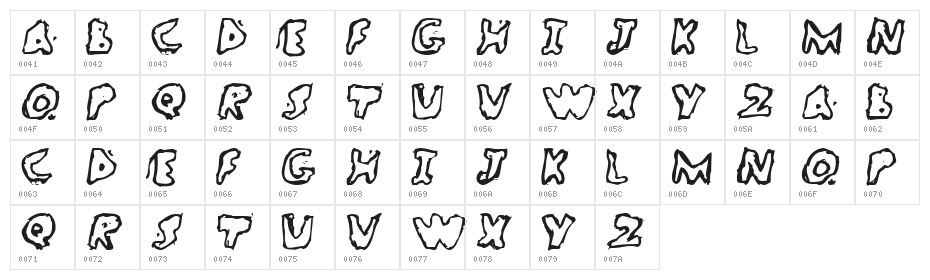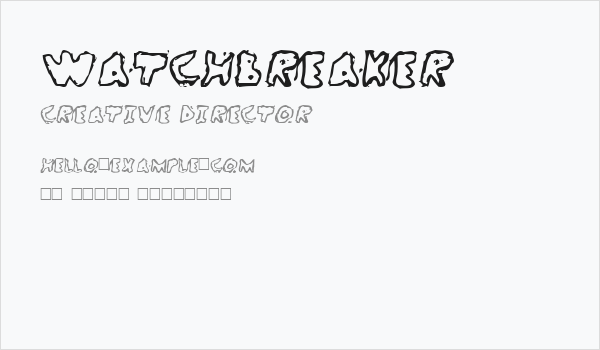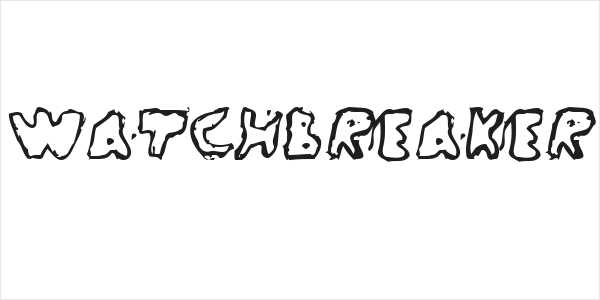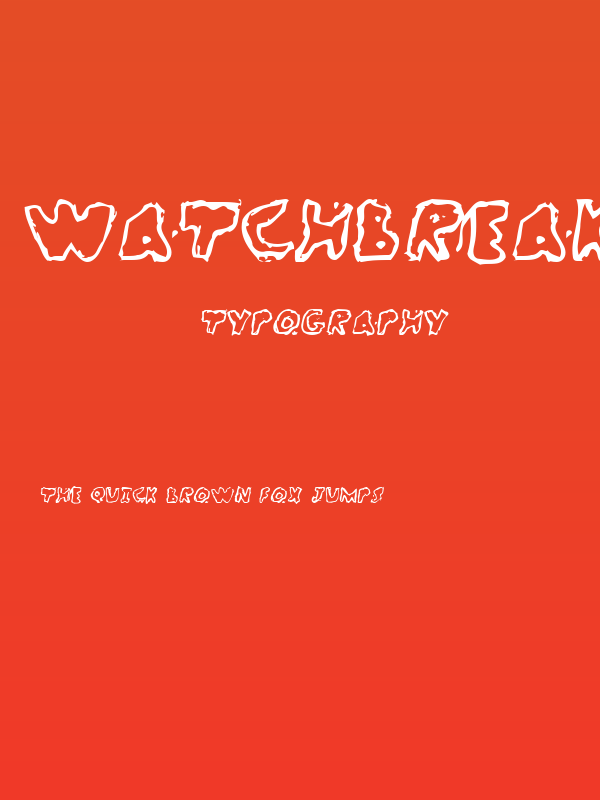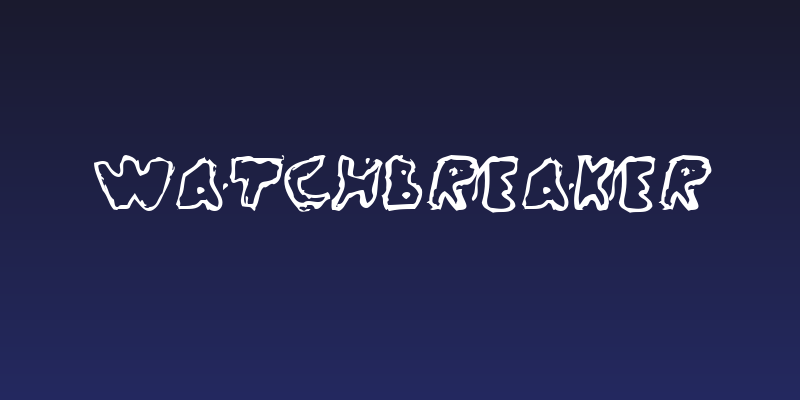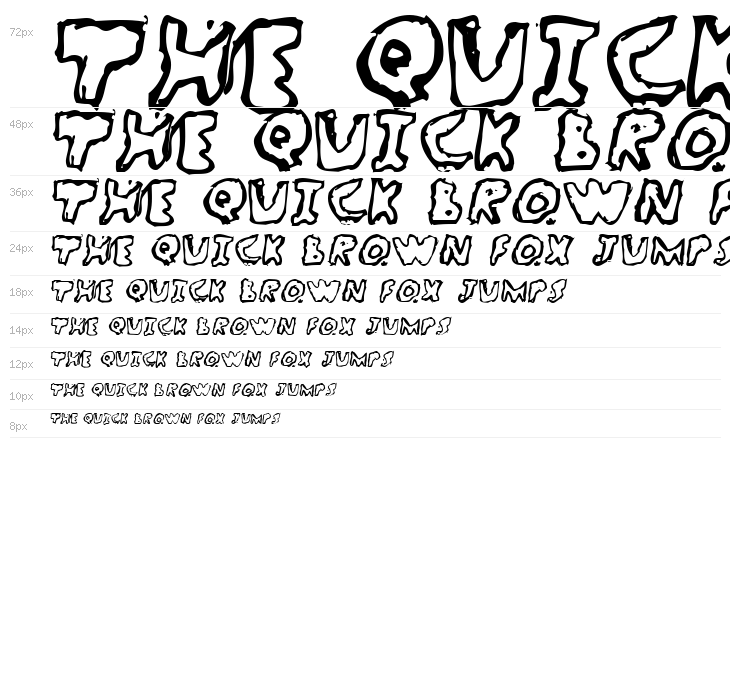
WatchBreaker Font
WatchBreaker Description
This font features a rugged, distressed style that mimics the appearance of cracked or broken surfaces. Each character is uniquely designed with irregular edges and varying line thickness, creating a dynamic and edgy look. The uppercase letters are bold and prominent, while the lowercase letters maintain the same distressed aesthetic. The numbers and special characters follow the same design principles, ensuring consistency across all elements. This font is perfect for projects that require a grunge or urban feel, adding a sense of raw energy and creativity.
| Overall Style | Grunge, Urban |
| Proposed Projects | Ideal for album covers, streetwear branding, graffiti art, and posters. |